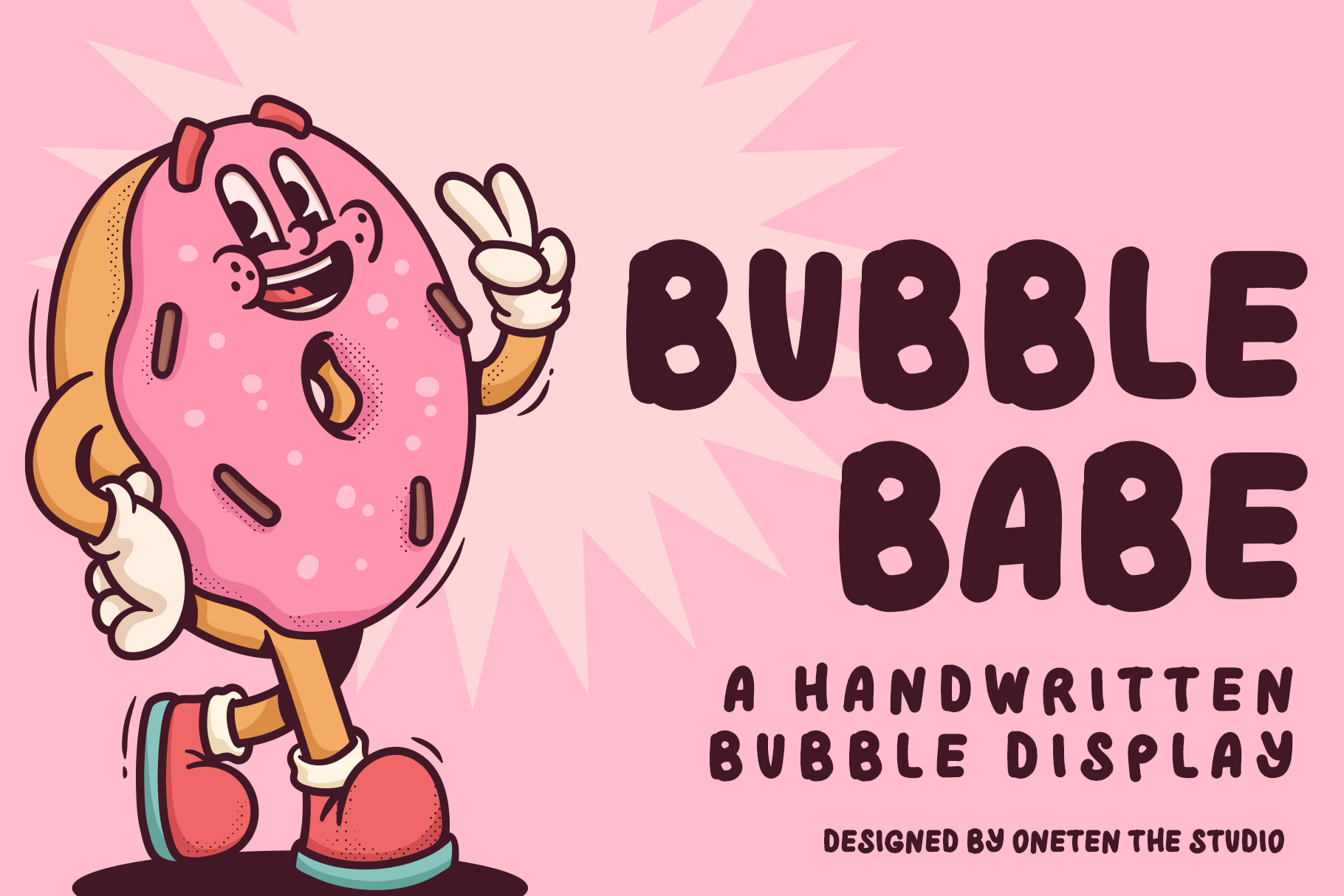
BubbleBabe | Handwritten Font
BubbleBabe™ is a no contrast, handwritten display font designed for cheeky graphics, posters and brand identities designed by Kelsey Kleiner here at OneTen.
BubbleBabe™ includes uppercase, 0-9, basic punctuation and is multilingual.